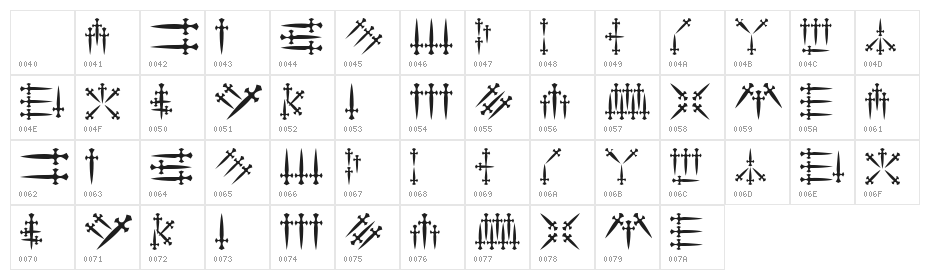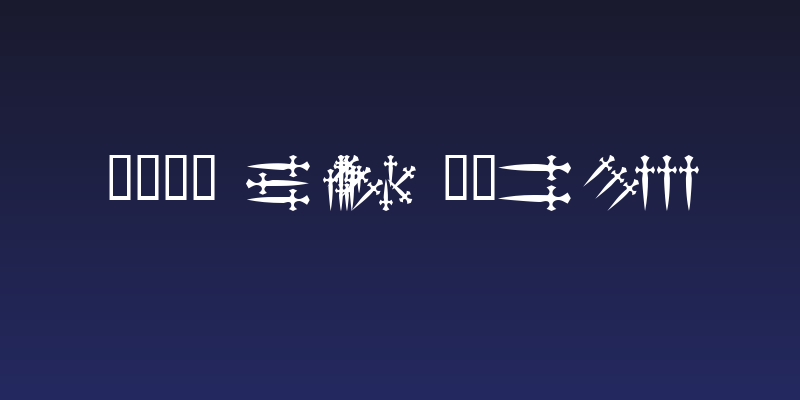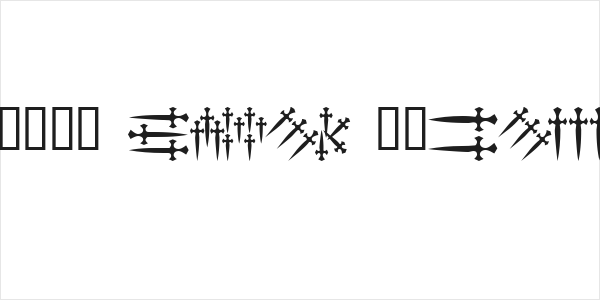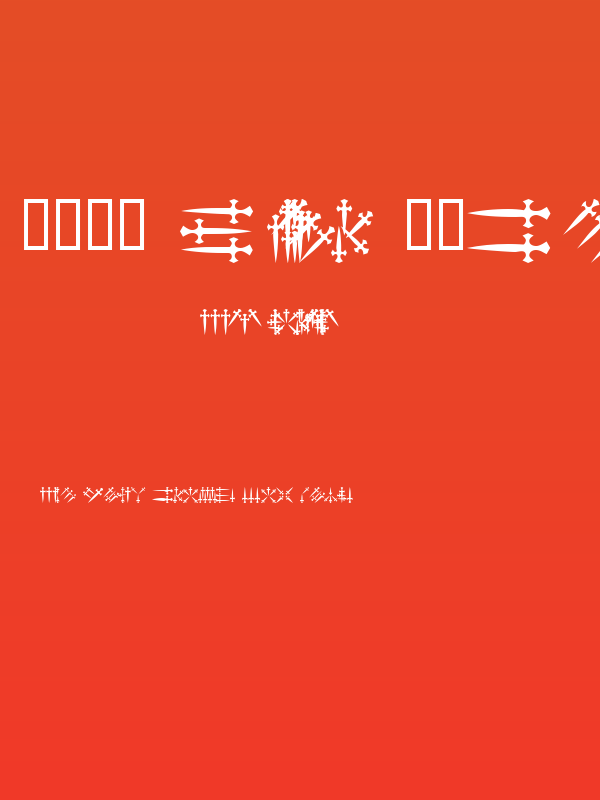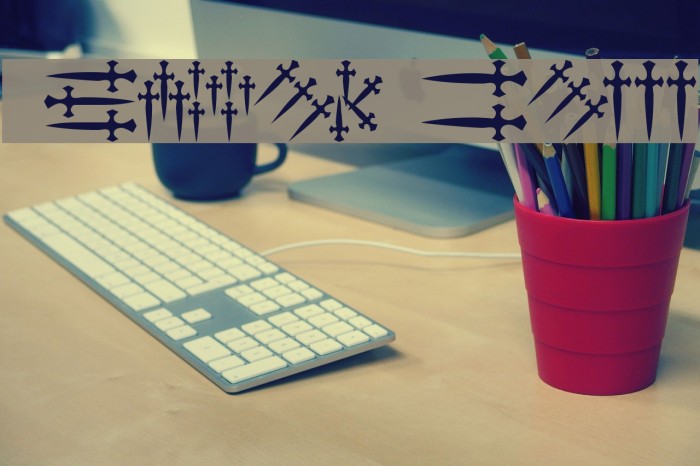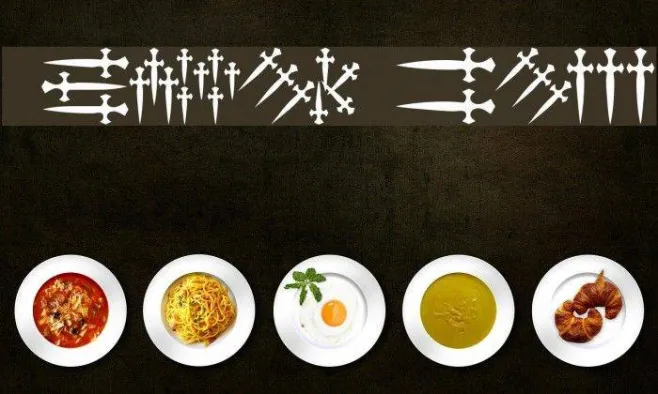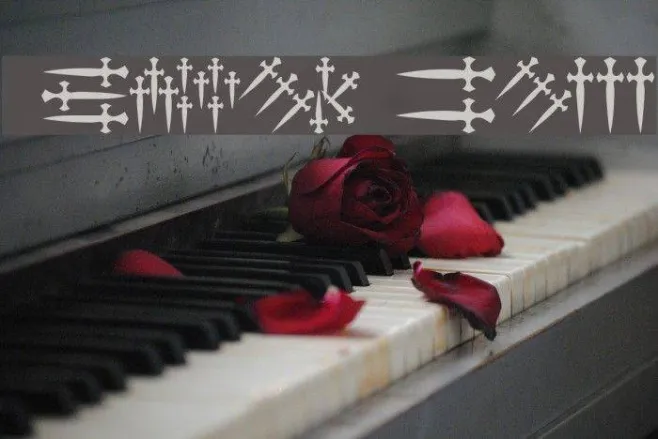
101! Dagger 'Bet Font
101! Dagger 'Bet Description
This font features a highly decorative and unique design, characterized by dagger-like elements forming each character. The intricate details and sharp edges give it a medieval and gothic appearance, making it stand out as a bold statement piece. The characters are crafted with a combination of thick and thin strokes, resembling ancient weaponry, which adds to its dramatic flair. This font is not suitable for body text due to its complex design but serves as an eye-catching option for specific thematic uses. The overall aesthetic is both striking and unconventional, appealing to those looking for a distinctive and thematic typeface.
| Overall Style | Gothic, Medieval, Decorative |
| Use Case | Logos, Headlines, Thematic Designs |
| Proposed Projects | Ideal for fantasy-themed projects, game titles, book covers, or any design requiring a medieval or gothic touch. |